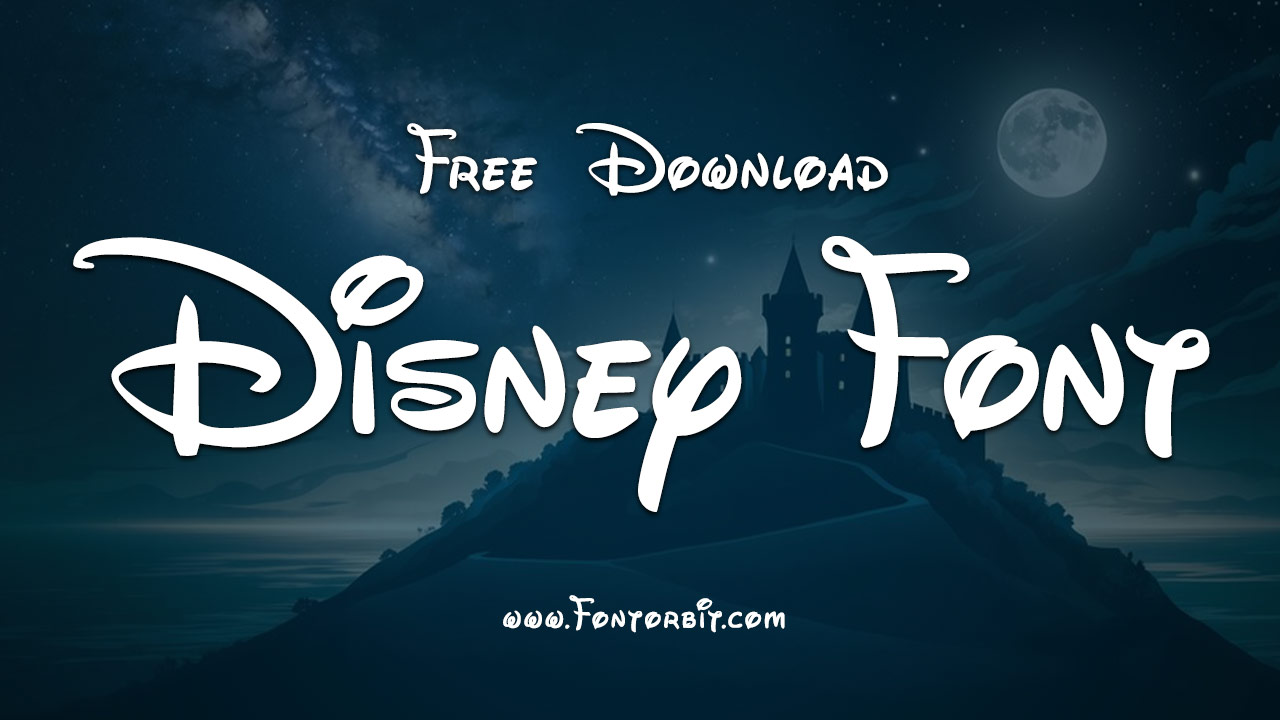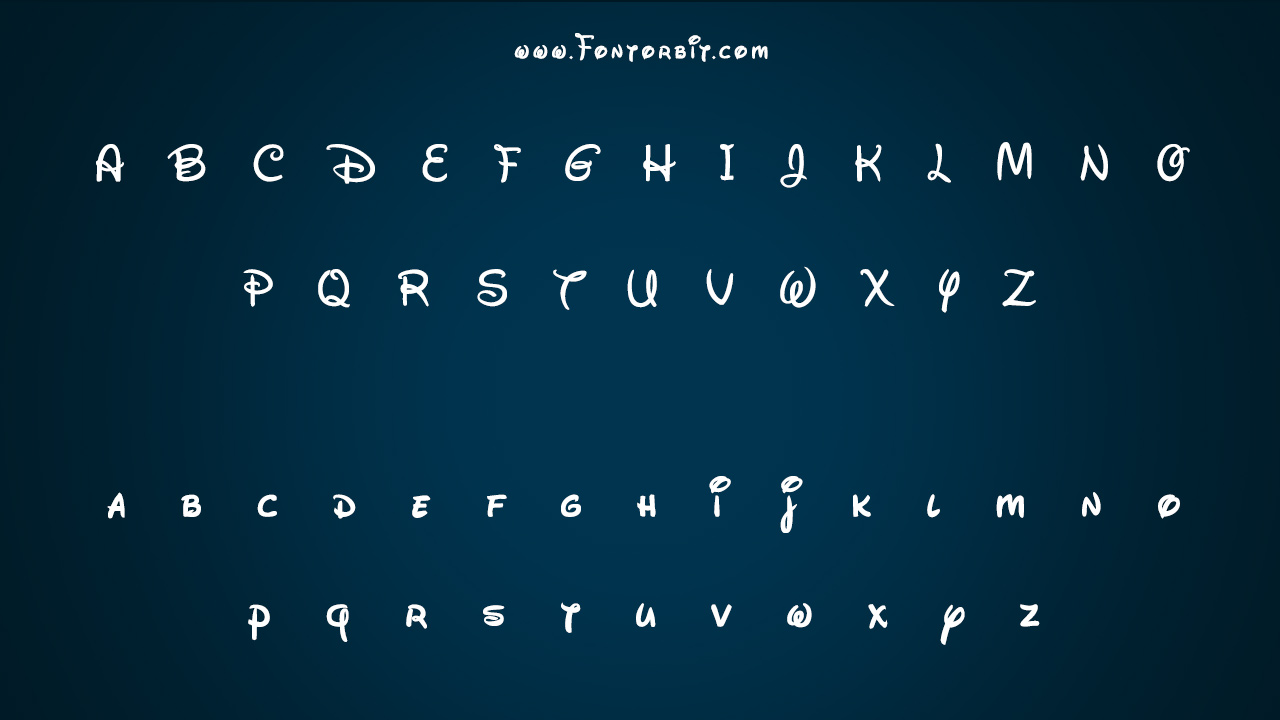
Disney font have become an iconic staple in design, capturing the whimsical magic of Disney movies, shows, and merchandise.
These fonts evoke nostalgia and playfulness, making them highly sought after by designers and fans alike. One popular Disney-inspired font is Disney Font, developed by Justin Callaghan. This font belongs to the decorative typeface family and mimics the distinctive script of the Walt Disney logo.
Disney Font is a fun and stylish font that resembles Disney’s signature style. Its versatility makes it perfect for various applications. The Disney Font font family includes the following styles:
Notable Uses Of Disney Font
Disney Font has been widely used for designing Disney-themed invitations, posters, and merchandise. Its playful and elegant curves bring to life the magical feel of Disney, making it a popular choice for:
- Birthday invitations for Disney-themed parties
- Posters or graphics for Disney fan art
- Custom T-shirts and apparel with Disney quotes
- Online branding for Disney-related fan pages or blogs
Given its unique style, Disney Font is best suited for creative projects that require a playful, whimsical, or nostalgic touch. It’s ideal for designs related to:
- Disney-themed events or parties
- Children’s books or websites
- Fan projects, such as Disney artwork or blog titles
- Merchandise and clothing inspired by Disney
While Disney Font captures the Disney vibe, it may not be appropriate for more formal or business-related projects. It’s best reserved for light-hearted, entertainment-oriented designs.
If you’re looking for free alternatives to Disney Font, several other fonts capture a similar Disney-like aesthetic. Some options include:
These fonts also capture the whimsical and magical feel of Disney, allowing designers more options for creative projects.
The Disney Font font and its Disney-inspired counterparts bring a sense of wonder and joy to any project. Perfect for creating logos, invitations, or branding that resonate with Disney’s spirit, these fonts are widely accessible for both professionals and fans.
Whether you’re designing a birthday invitation or a piece of fan art, these fonts can add a touch of Disney magic to your work.
While inspired by Disney’s typography, Disney Font is not an official Disney font.
Disney Font was designed by Justin Callaghan.
Disney Font is one of the most popular Disney-inspired fonts due to its close resemblance to the Disney logo.